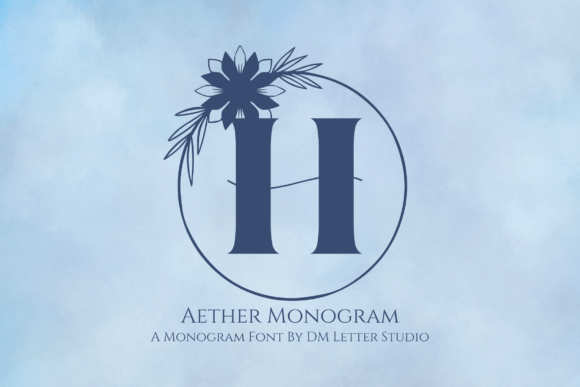
Elevate Your Designs with Aether Monogram Font
Have you ever been in the midst of working on a project, and suddenly, you’re struck by a creative block? You’re not alone! I recall a particular instance when I was designing a wedding invitation suite for a client. The theme was elegant and sophisticated, but I was struggling to find the perfect font that would bring the entire design together. That’s when I stumbled upon Aether Monogram Font, and it was love at first sight! 💕
Infused with refined letterforms and intricate detailing, Aether Monogram Font is a carefully crafted typeface designed to add an exquisite flair to your monograms, logos, and bespoke branding endeavors. In this article, we’ll dive into the world of elegance that Aether Monogram Font has to offer and explore its capabilities.
An Honest Review of Aether Monogram Font
- ✨ Exquisite letterforms: Each letter is carefully crafted to exude elegance and sophistication.
- ✅ Intricate detailing: The font features beautiful swashes and flourishes that add a touch of luxury to any design.
- 💫 Versatility: Aether Monogram Font can be used for a wide range of projects, from wedding invitations to branding suites and upscale stationery.
While Aether Monogram Font is an exceptional typeface, there are a few things to keep in mind:
- ⚠️ Glyph limitations: Some users may find that the font’s glyph library could be more extensive.
- 🤔 Kerning issues: As with any font, some users may experience kerning issues when using certain letter combinations.
The Story Behind Aether Monogram Font
Aether Monogram Font was designed with the intention of creating a typeface that would bring a touch of elegance and sophistication to any design. The designer, inspired by the beauty of luxury brands and high-end stationery, crafted each letterform with precision and attention to detail. The result is a font that exudes refinement and poise.
Q: What is Aether Monogram Font best suited for?
A: Aether Monogram Font is ideal for creating elegant wedding invitations, opulent branding suites, upscale stationery, and bespoke crafts.
Q: Is Aether Monogram Font suitable for body text?
A: While Aether Monogram Font is primarily designed for display purposes, it can be used for short paragraphs of body text. However, it’s recommended to use a clear and readable font for longer texts.